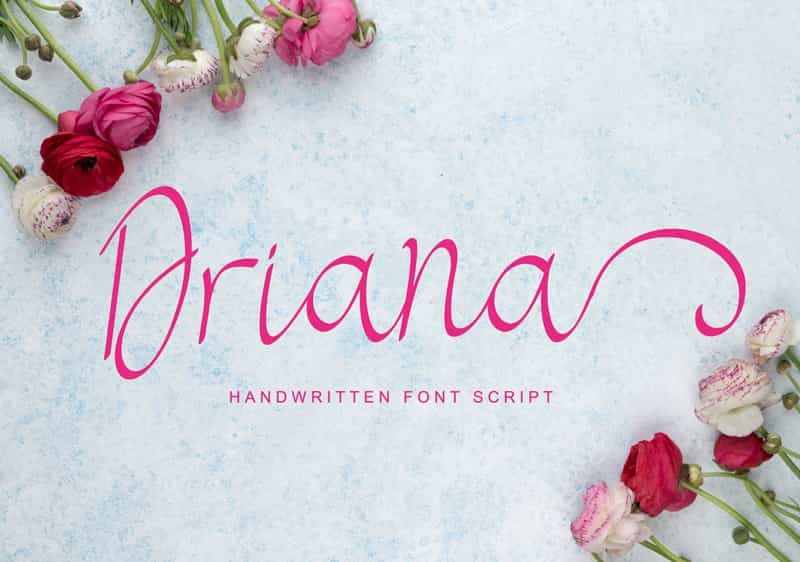
Driana is a calligraphy or handwriting typeface that has an elegant and refined look. Branded and luxury stuffs make this font look classy and awesome in many ways to your latest project. This, being inspired by these things will definitely be a great addition to it.